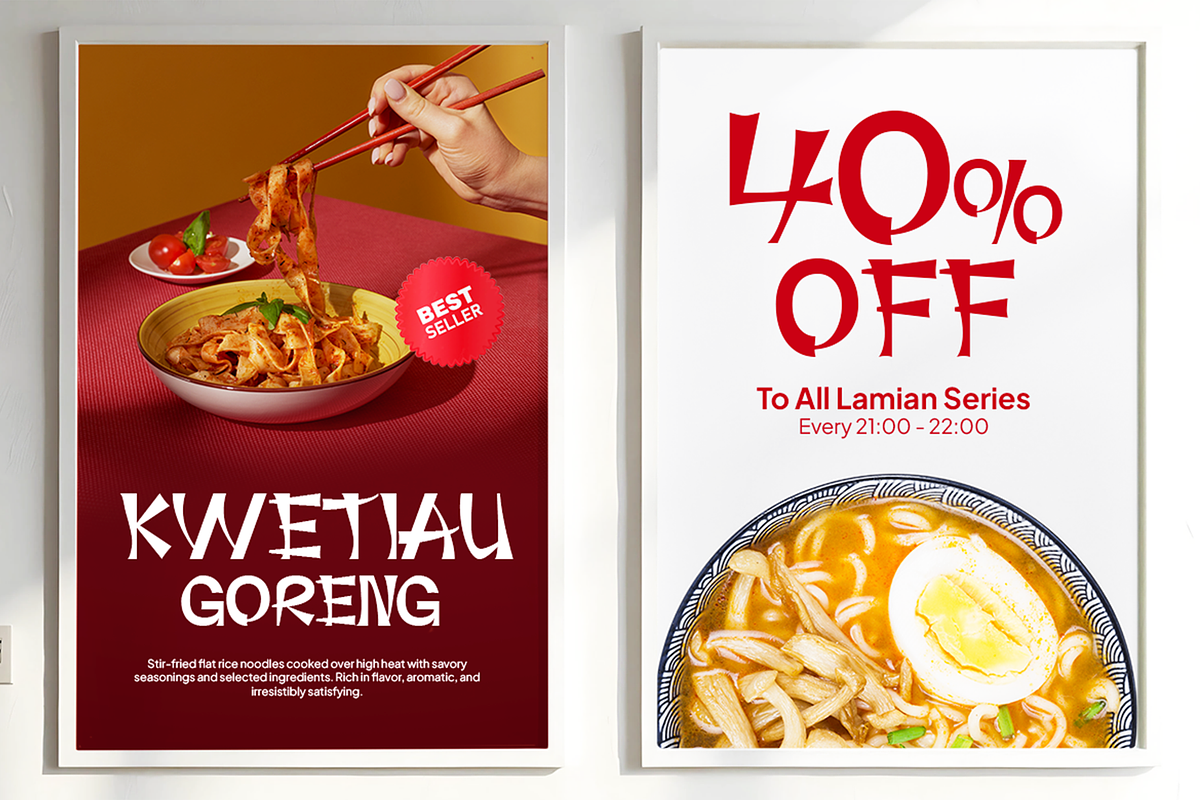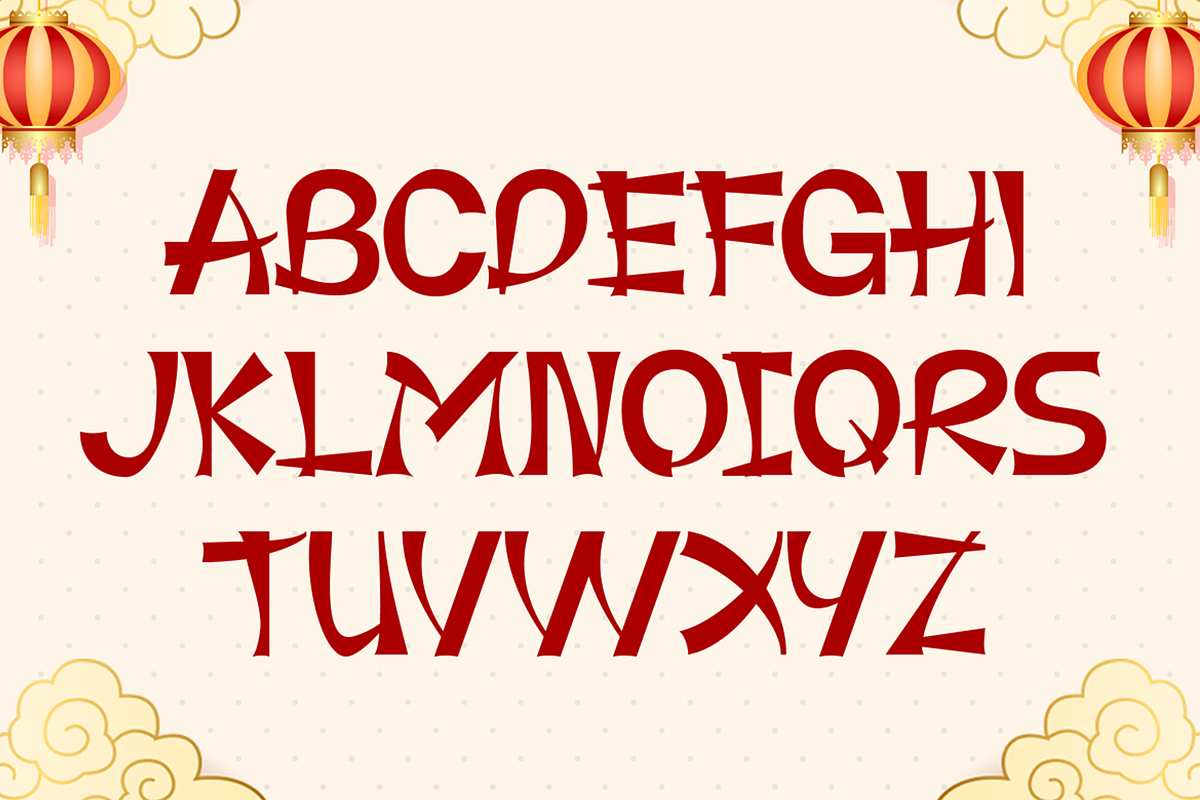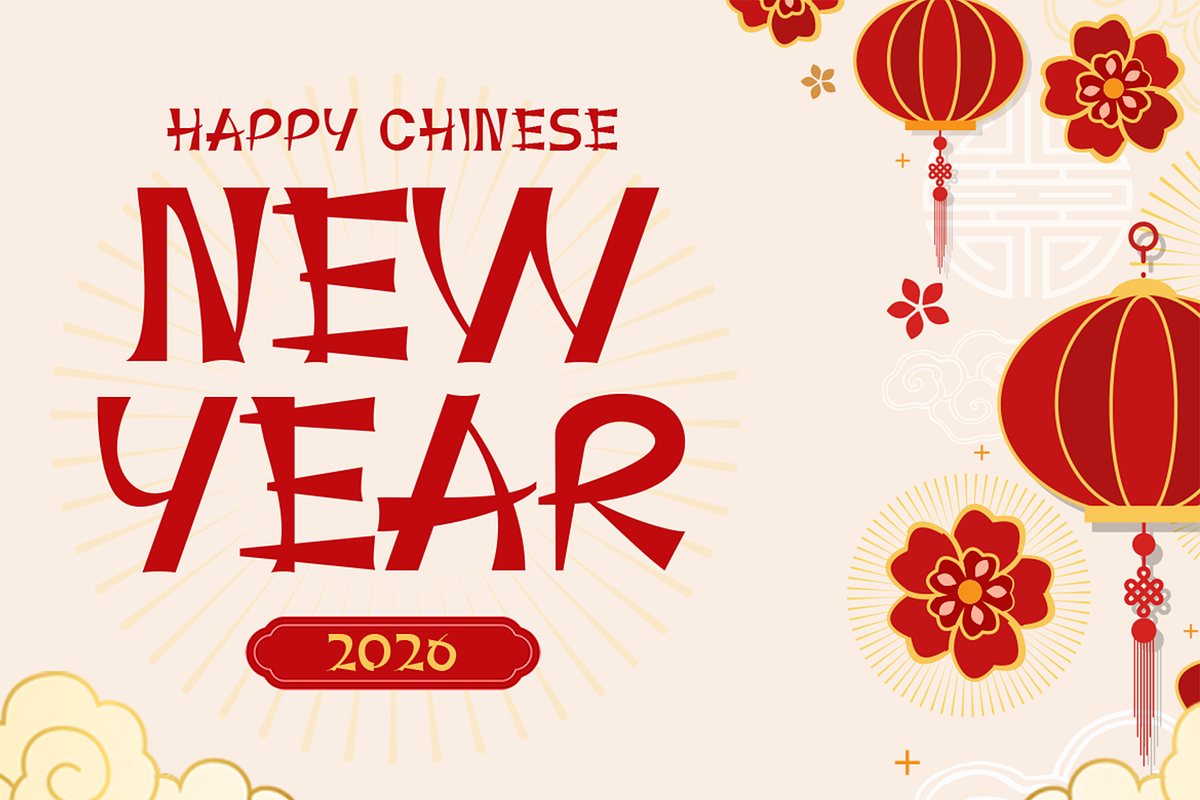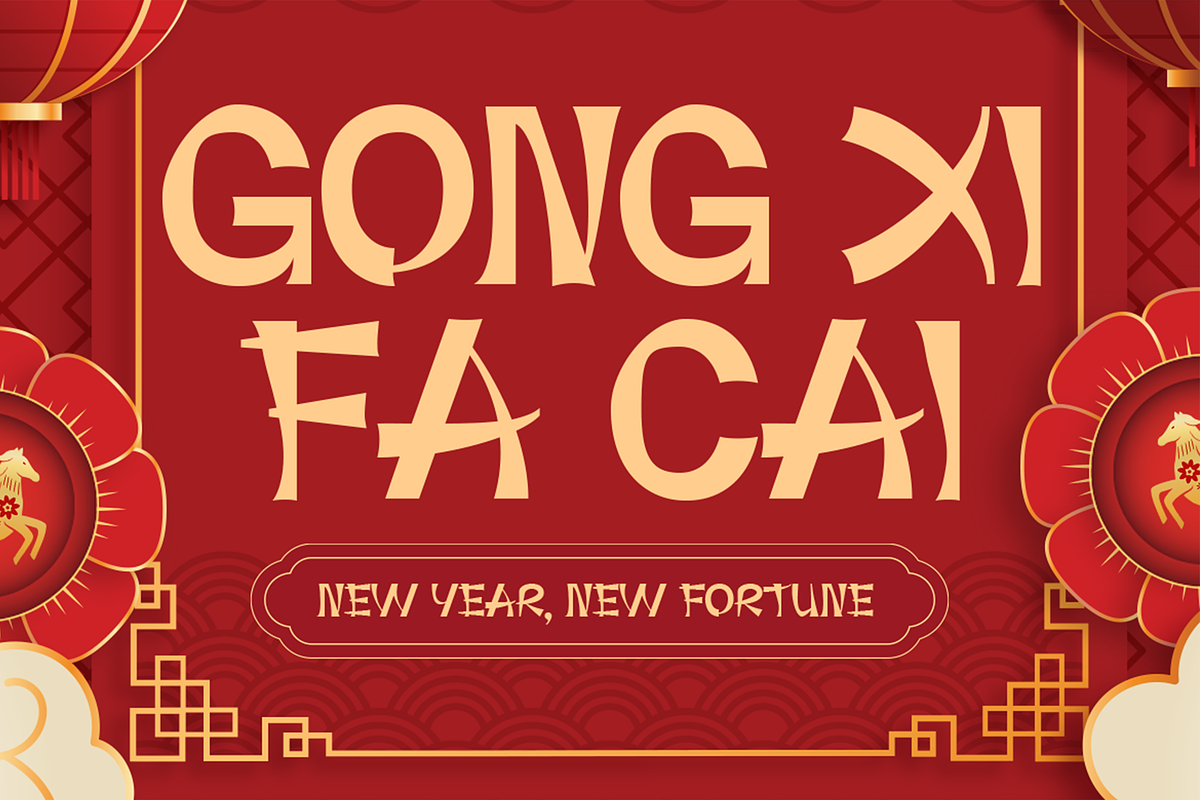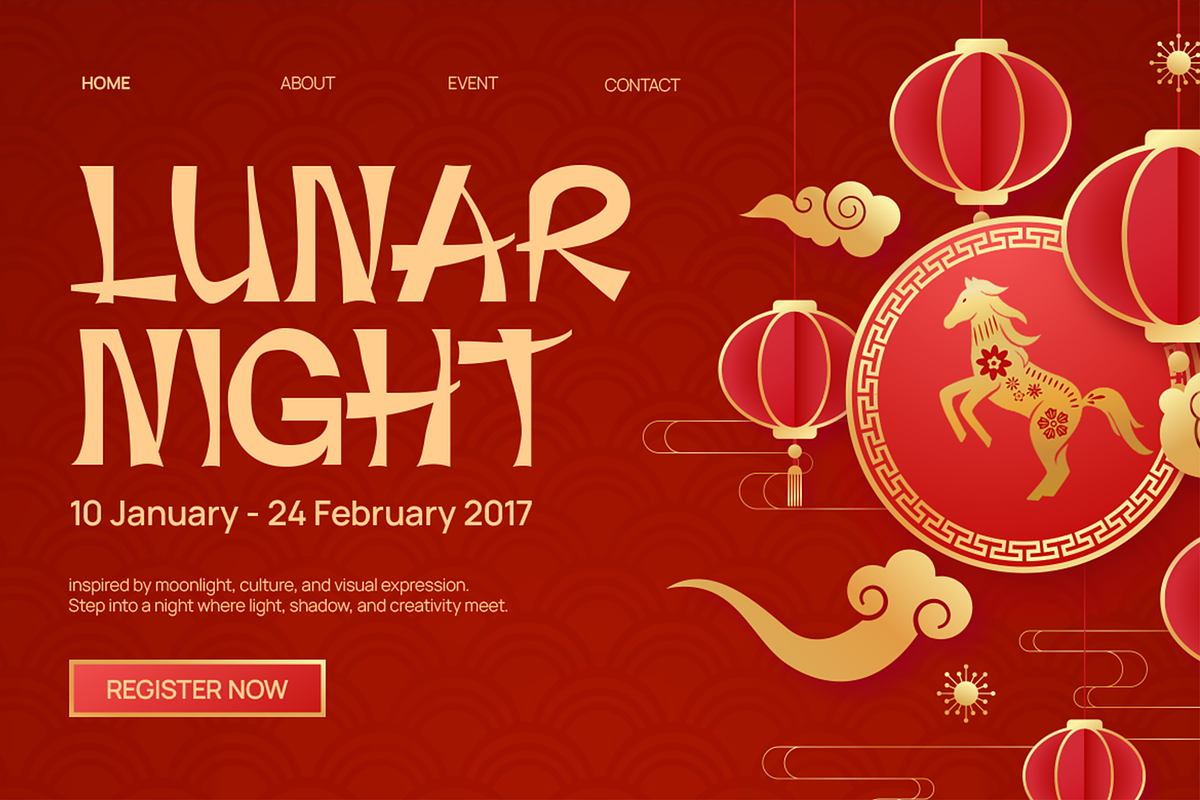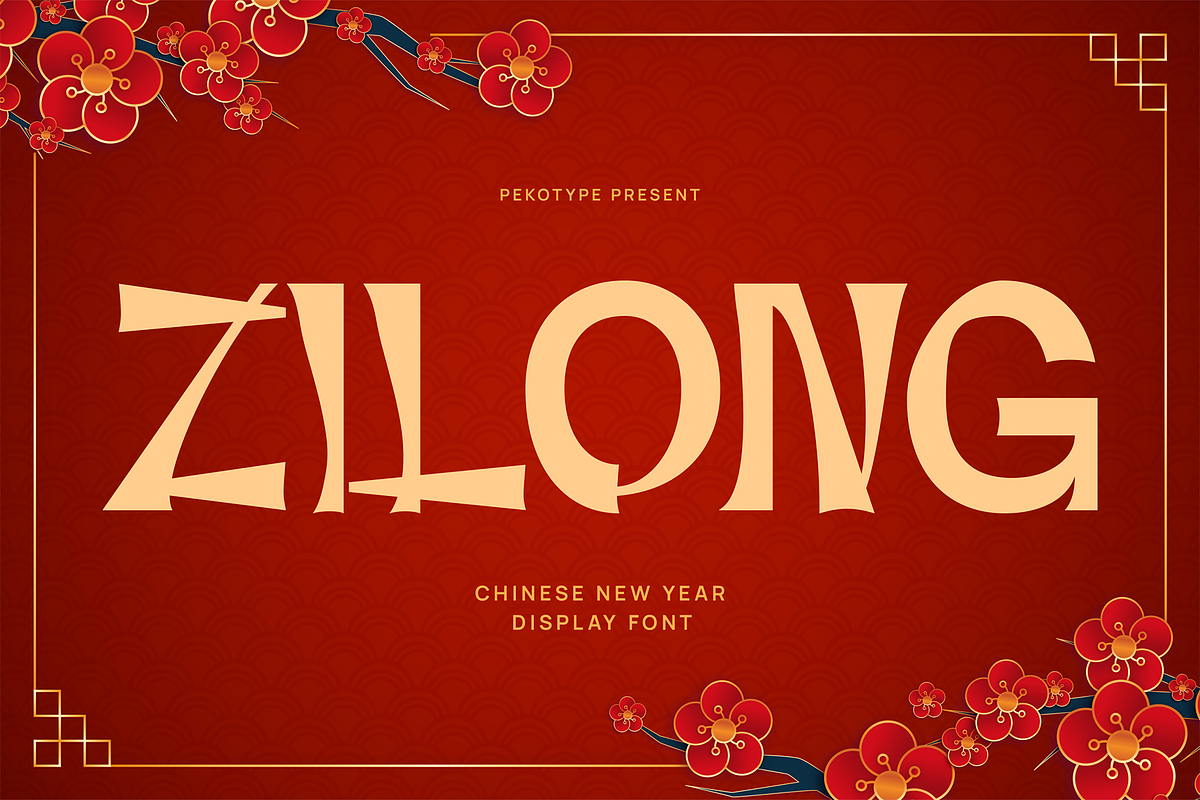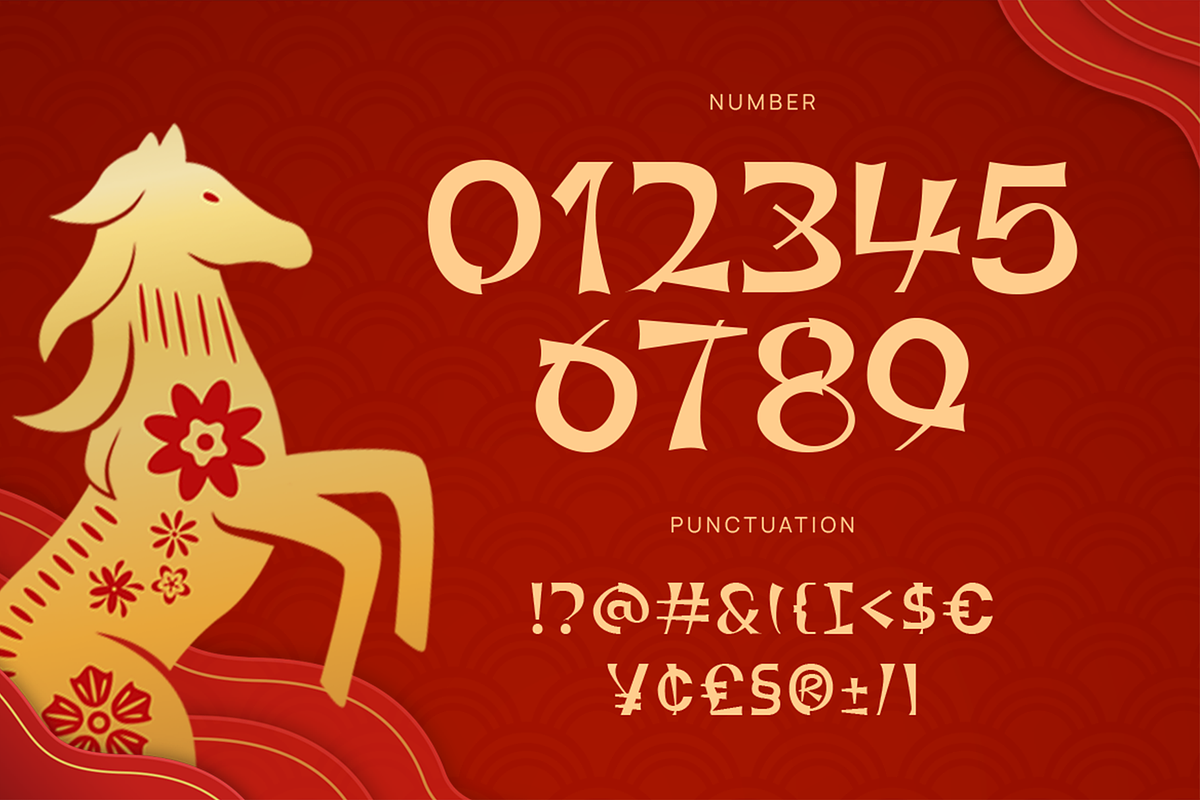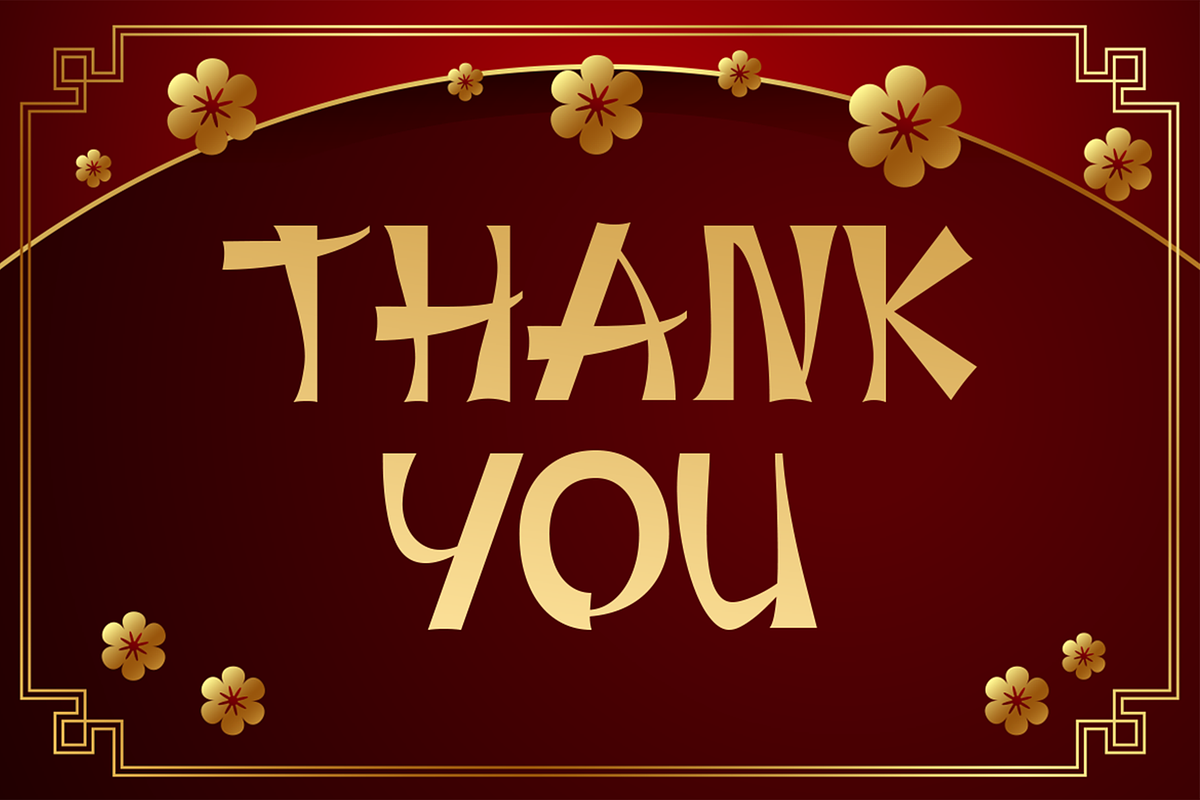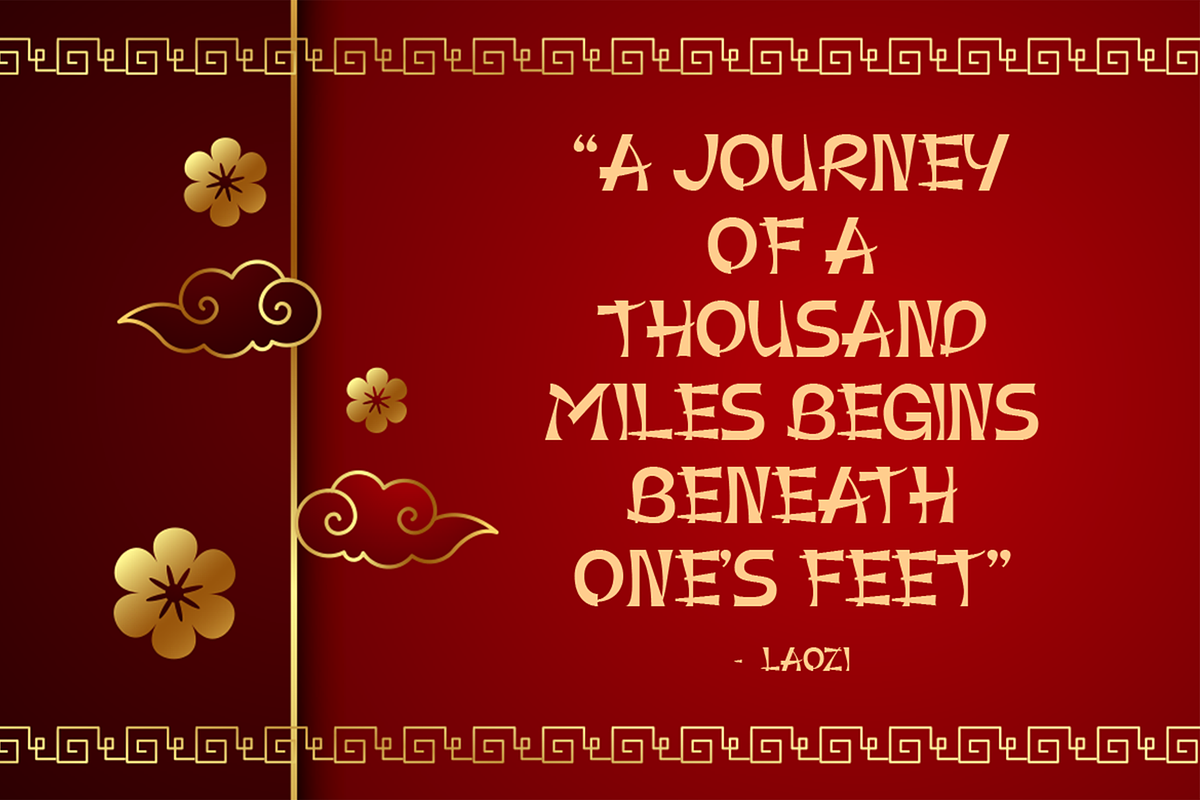
Zilong - Oriental Chinese Font
ZILONG – Traditional Oriental Chinese-Style Display Font
ZILONG is a striking traditional oriental typeface inspired by classic Chinese aesthetics, cultural ornaments, and festive heritage design. Featuring sharp strokes, elegant curves, and authentic Asian character influence, ZILONG delivers a powerful visual identity that feels bold, ceremonial, and culturally rich.
Designed as an all-caps font with multilingual support, ZILONG is perfect for creating eye-catching headlines and impactful visuals. Its strong personality makes it ideal for branding, logos, packaging, posters, event promotions, restaurant branding, cultural campaigns, social media graphics, and festive designs—especially for themes like Chinese New Year, Lunar Festival, oriental cuisine, and traditional celebrations.
ZILONG blends tradition with modern usability, allowing designers to bring an authentic eastern atmosphere into contemporary design projects. Whether used in digital marketing, print promotions, or cultural storytelling, ZILONG Typeface delivers timeless oriental charm with bold decorative impact.
If you’re looking for a Chinese-style font that captures tradition, symbolism, and cultural elegance, ZILONG Typeface is a powerful choice for memorable and meaningful design work.
- All Caps